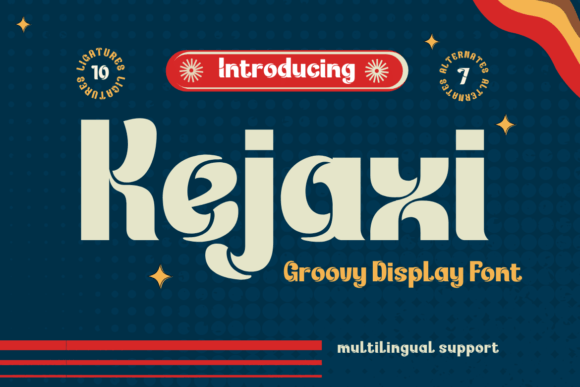
Unleash your musical vision with Kejaxi Font, the psychedelic-inspired display typeface that's ready to rock your designs! Imagine your brand or music logo bursting with personality, as this groovy font takes center stage. With its bold and playful shapes, Kejaxi is the perfect companion for your creative projects, adding a touch of retro flair that will make your designs stand out.
Picture your product packaging adorned with Kejaxi's vibrant letters, captivating customers' attention and leaving a lasting impression. Or elevate your digital creations with Kejaxi's unique style, whether it's for social media graphics, website headers, or eye-catching posters. The possibilities are endless!
With Kejaxi Font, you'll not only enhance your designs but also connect with your audience on a deeper level. Its psychedelic vibe evokes a sense of nostalgia and playfulness, resonating with those who appreciate bold and distinctive aesthetics. It's the perfect choice for music-related projects, as it captures the essence of creativity and artistic expression.
And the best part? Kejaxi Font is PUA encoded, making it incredibly user-friendly. Access all the glyphs and ligatures with ease, ensuring your designs flow seamlessly. Unleash your imagination and let Kejaxi's vibrant energy infuse your creations with a touch of magic.